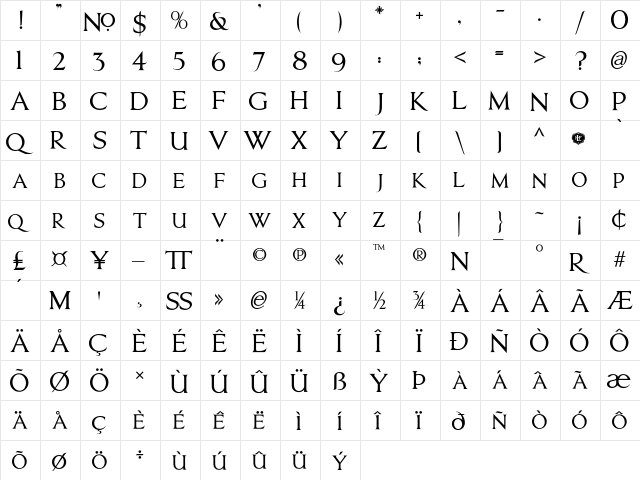
LHFEssendineSMALLCAPS Regular
Design Context for LHFEssendineSMALLCAPS Typeface
LHFEssendineSMALLCAPS takes a measured approach to typography — its balanced proportions and neutral character make it a reliable workhorse for both digital and print work.